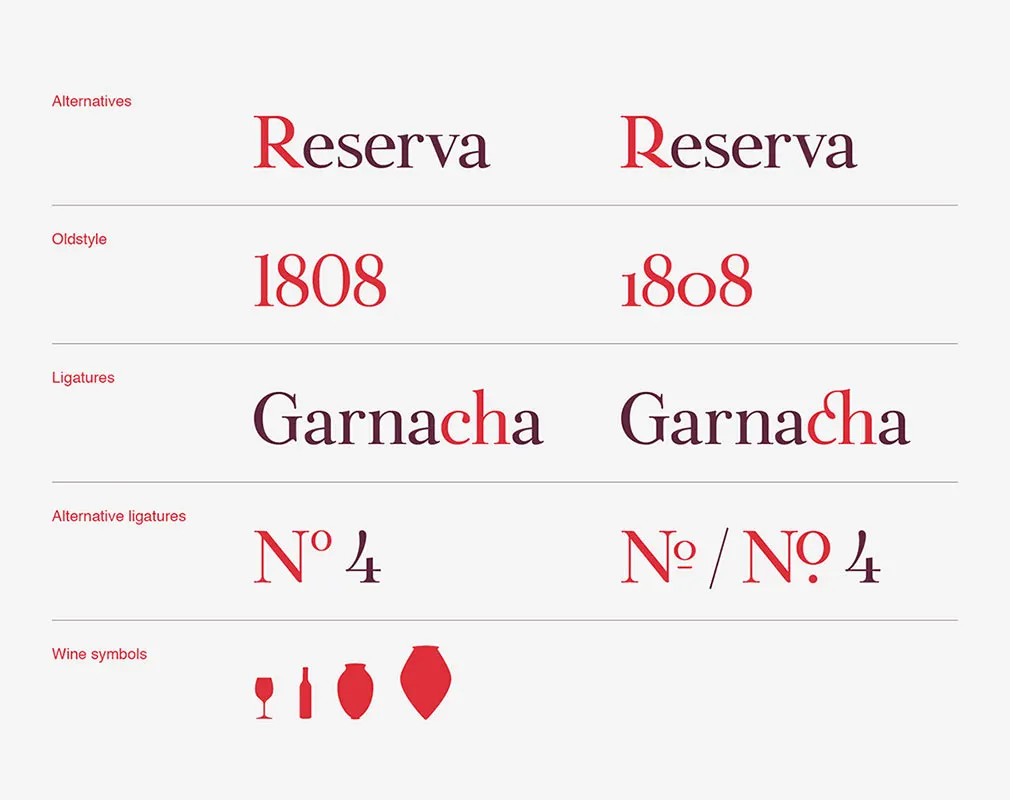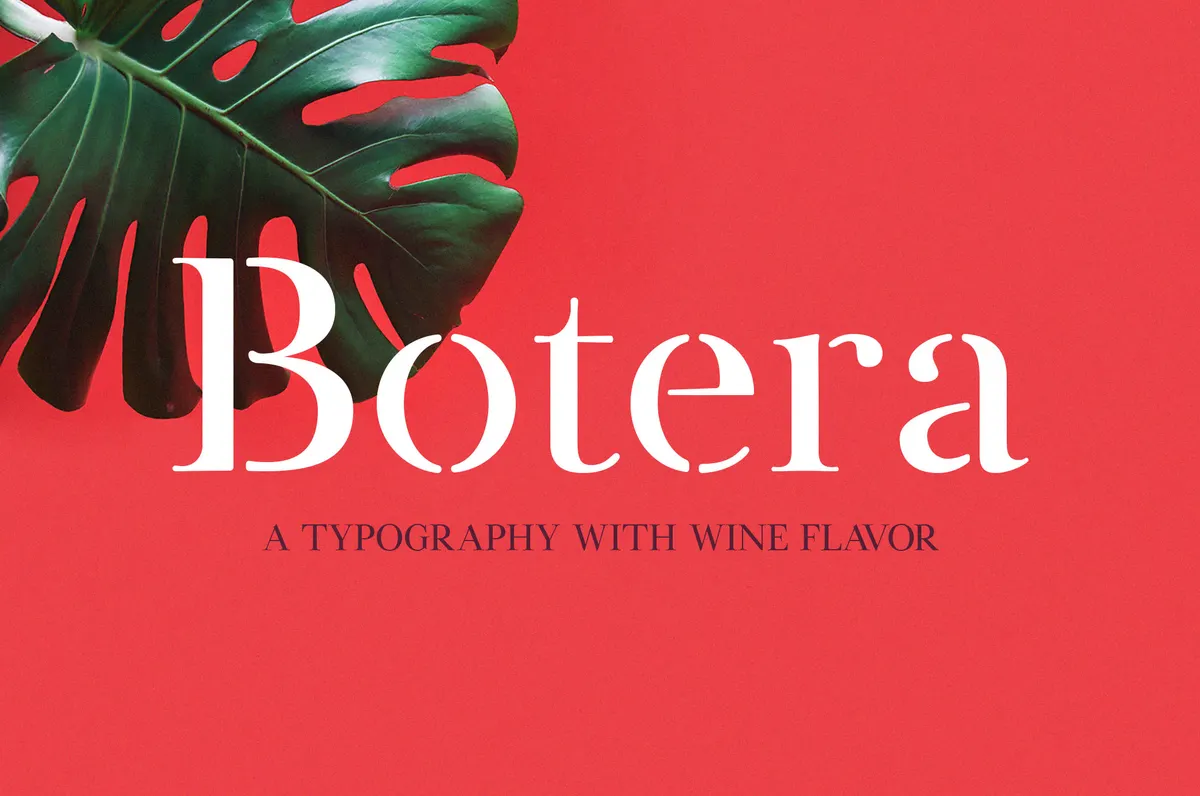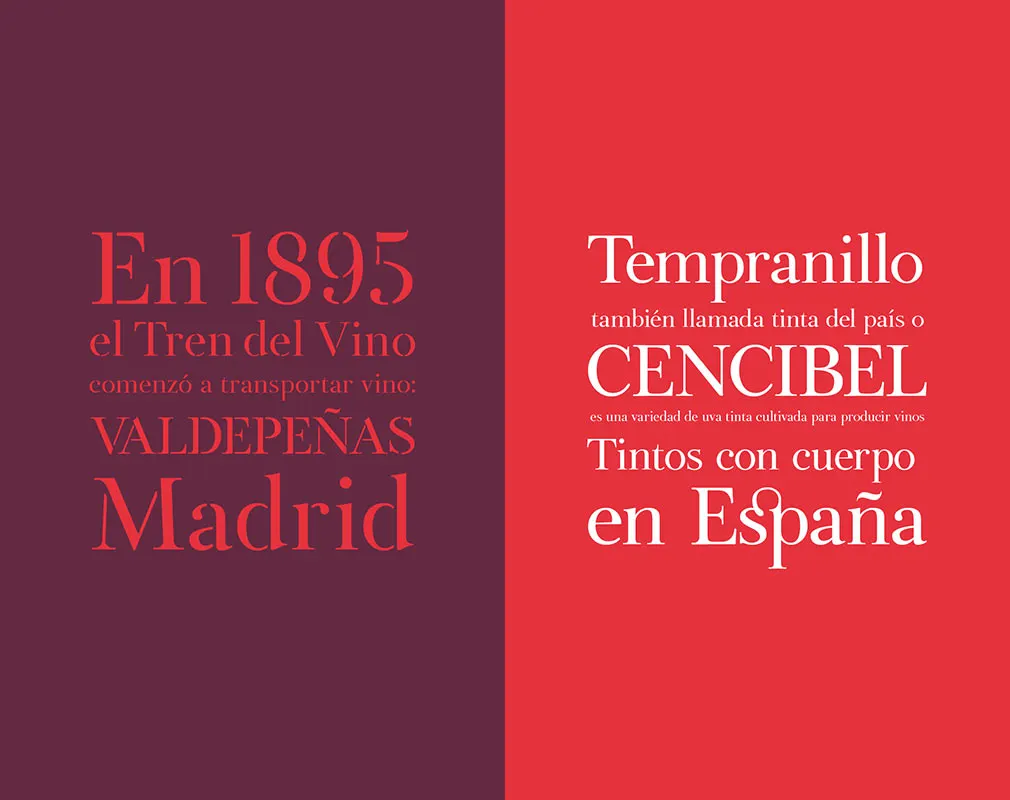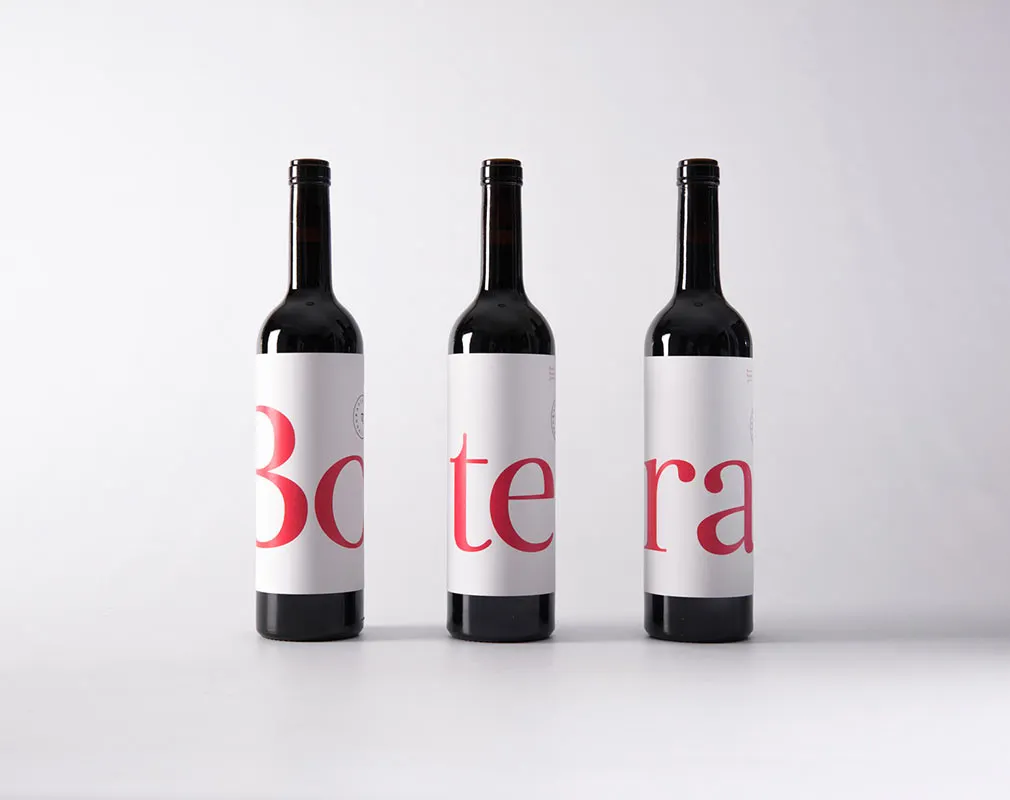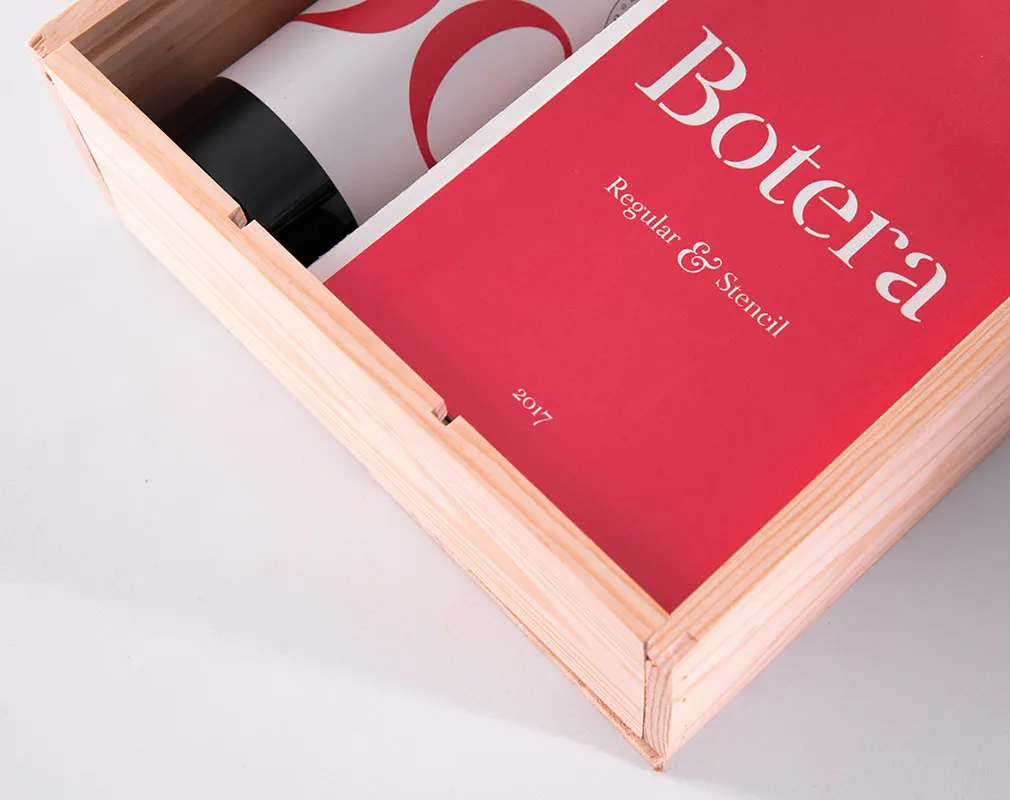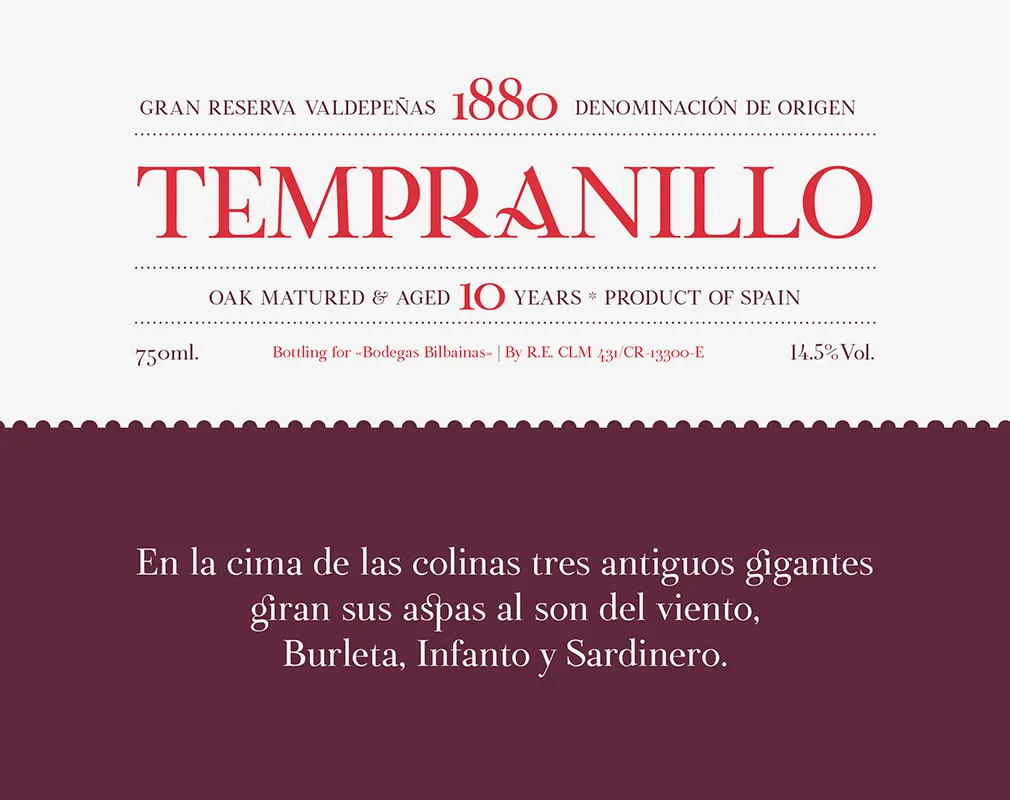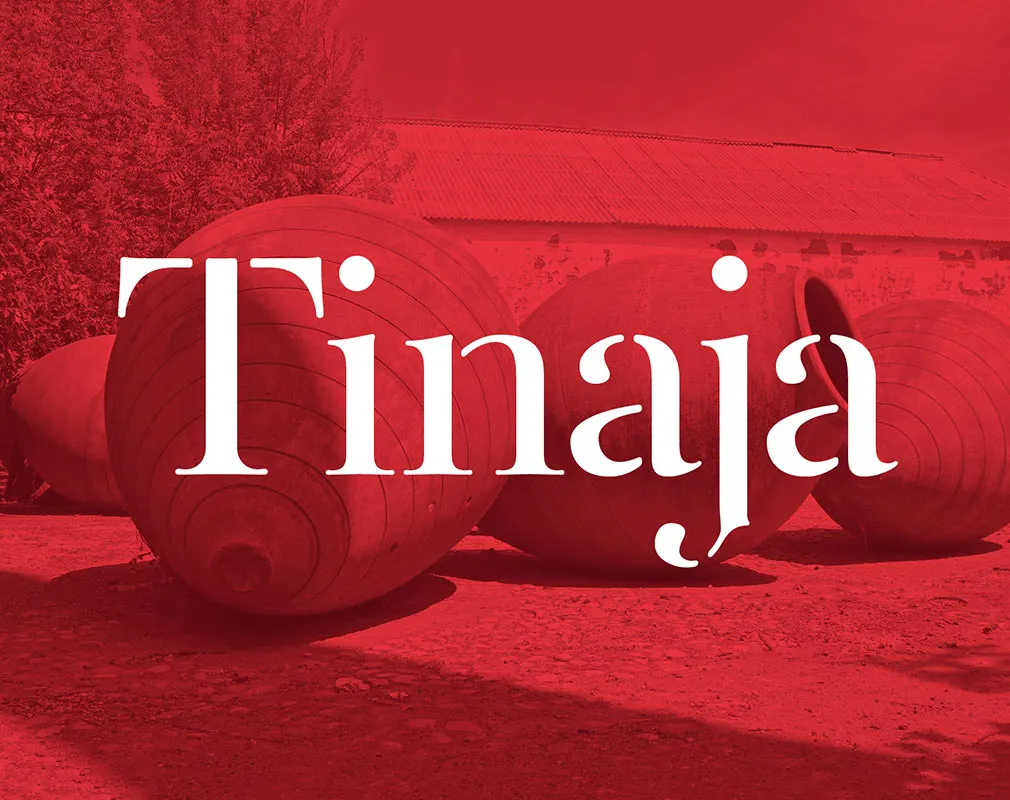
Botera Stencil Font
This exquisite typeface consists of regular serif and stencil fonts, which are ready to shine in your designs! Created as a wine production typography project now it can become a part of your design.
Downloading this freebie you automatically get two font variants, which can be applied to your projects with all the ligatures, numerals and old style variant. Armed with such tools, your design abilities get almost unlimited, so feel absolutely free to involve Botera to your branding projects, commercials, printouts, posters, invitations, apparels, and God knows how many other ideas can come to your sharp mind.